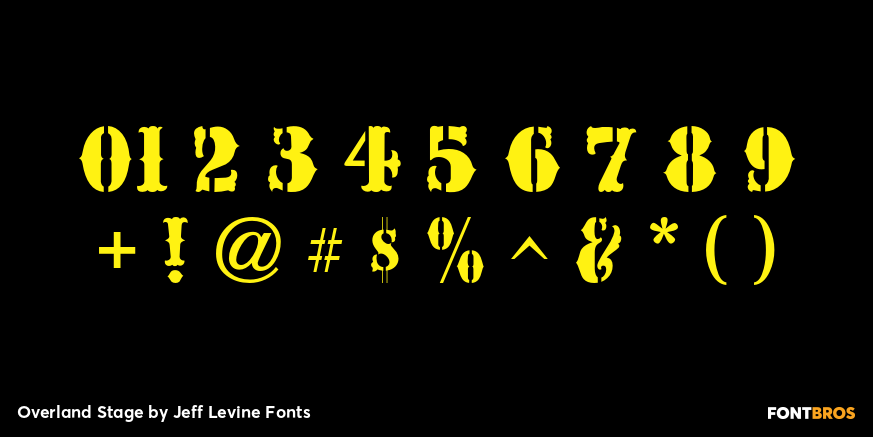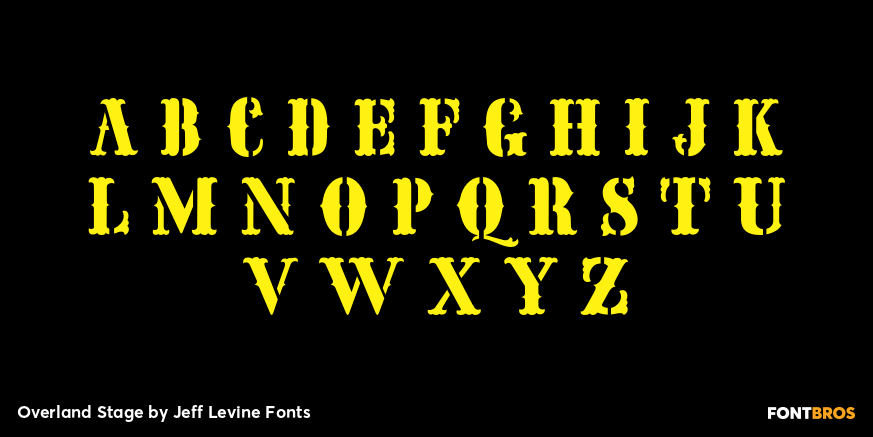
Overland Stage
In the days when stage coaches, wagon trains, the Pony Express and the first transcontinental crossed the landscape of this country, merchants shipped their goods any way possible to the growing territories and states.
Picture wooden cases filled with dry goods, hardware or foodstuffs… marked in hand-cut stencil lettering and nailed shut for their cross-country journey.